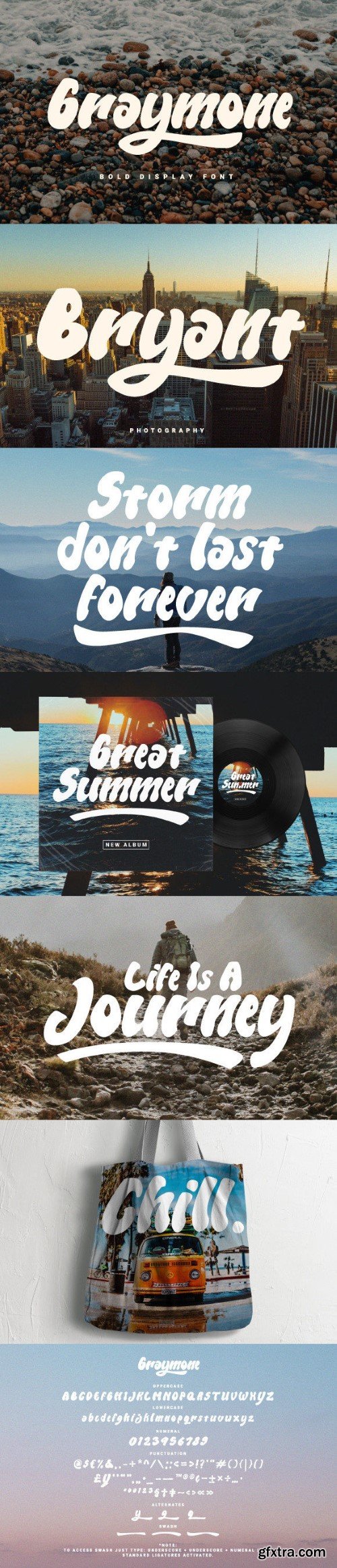
Graymone is a retro and bold display font that’s great for delivering any message with confidence, authenticity and charm. It will elevate a wide range of crafting ideas, from cards, to branding, labels and much more.